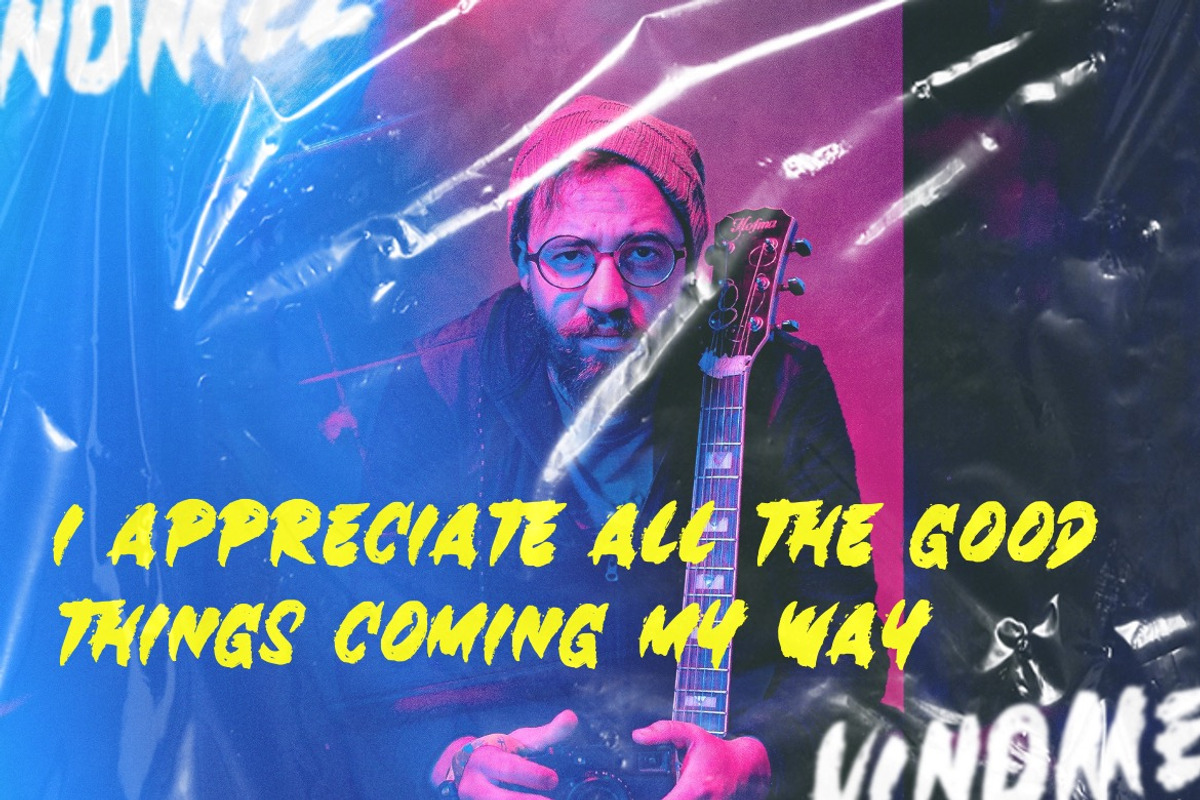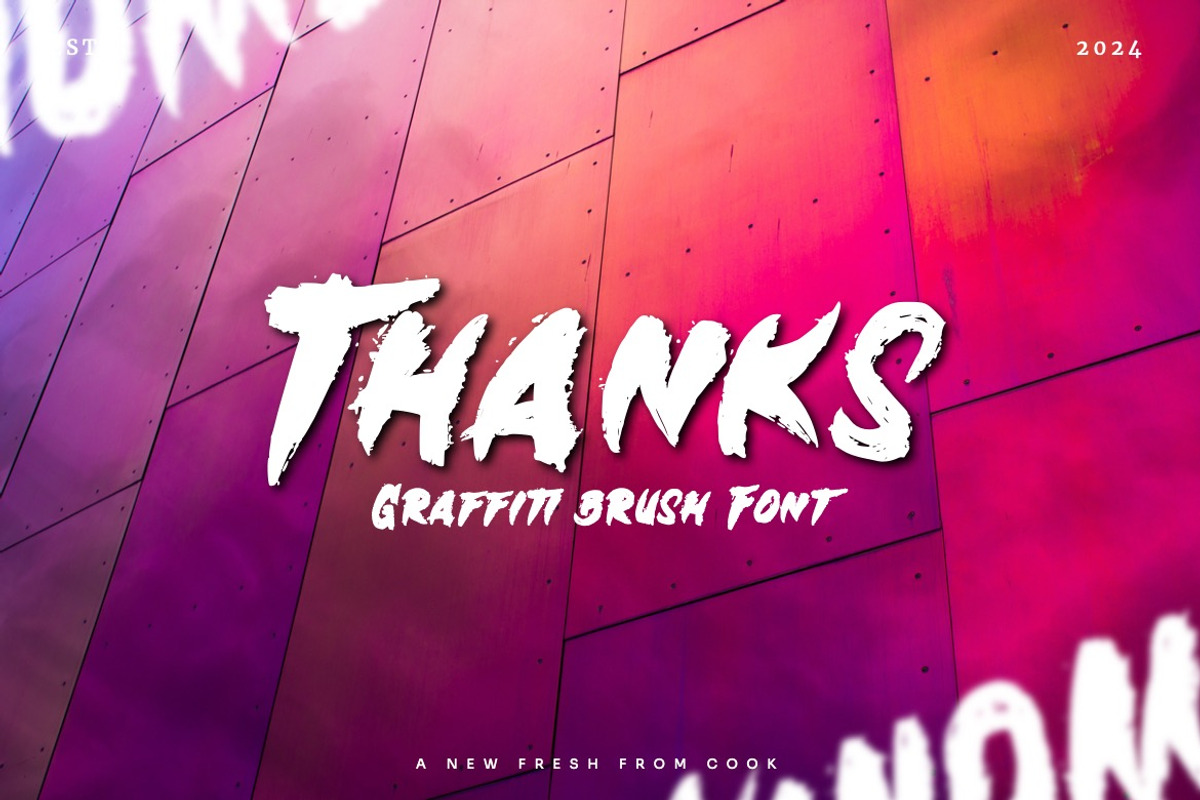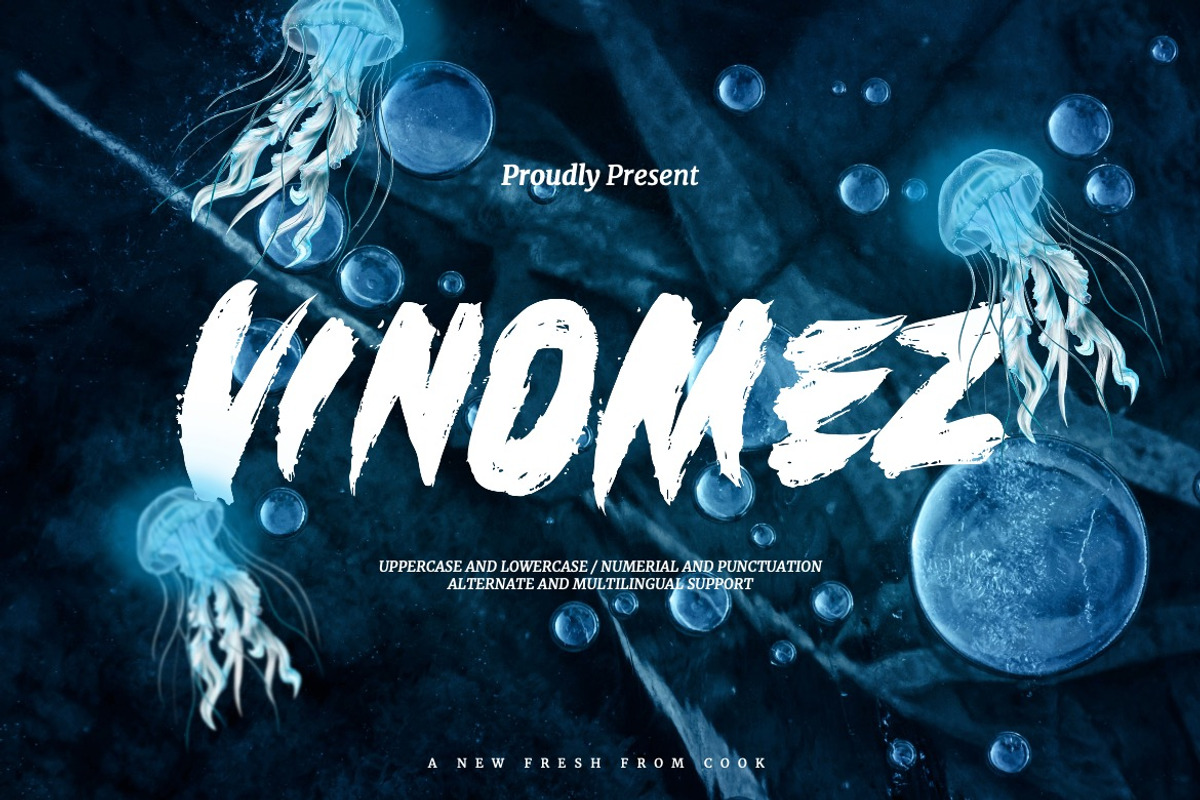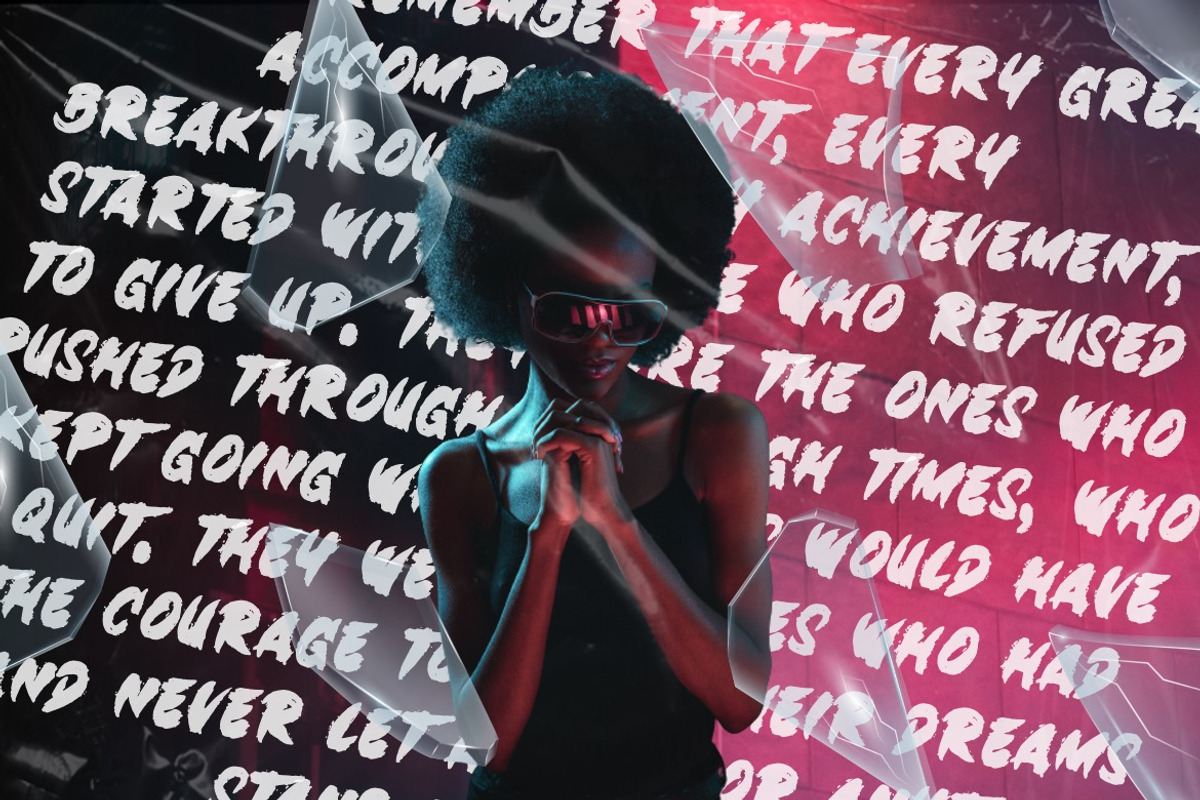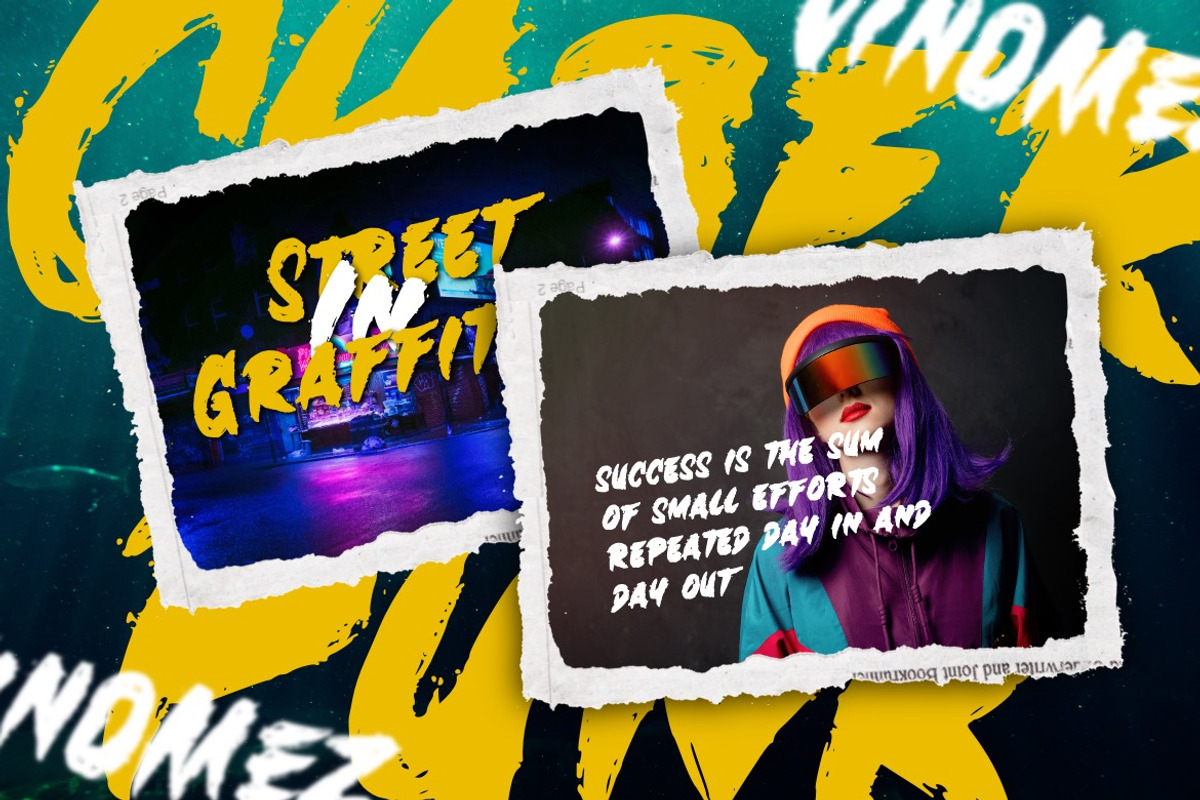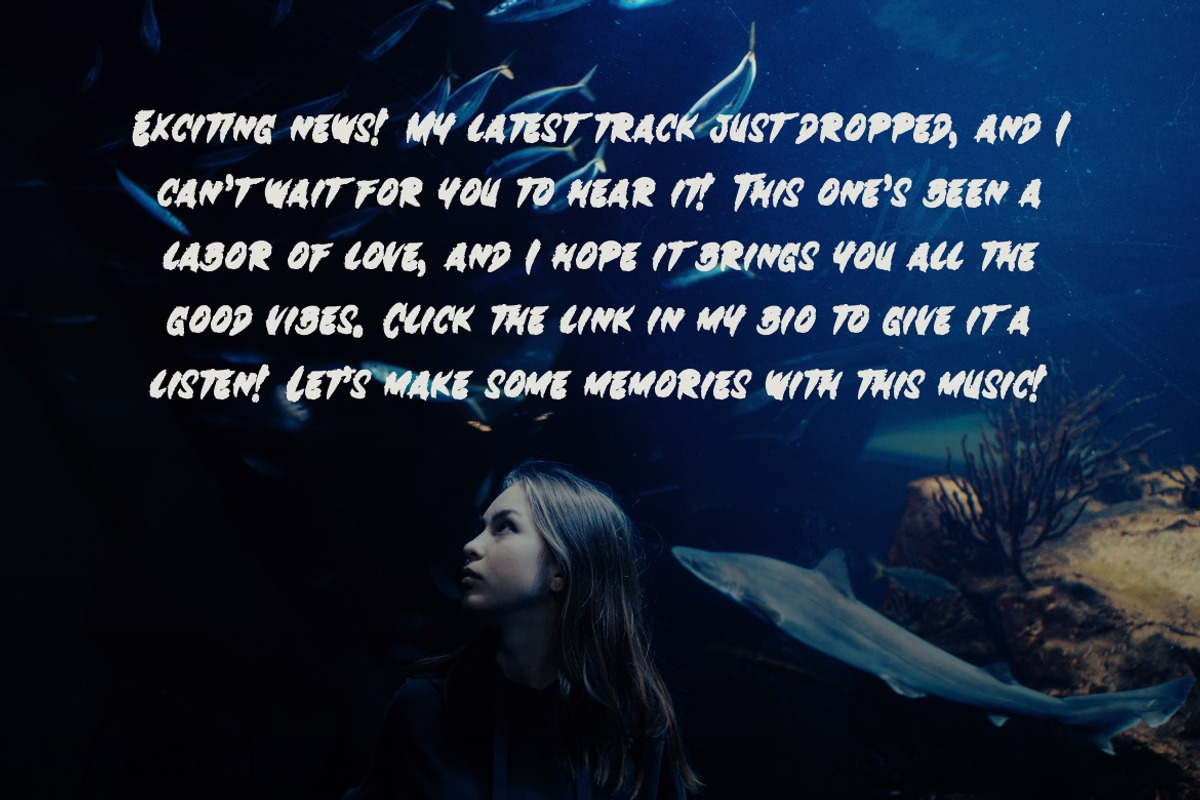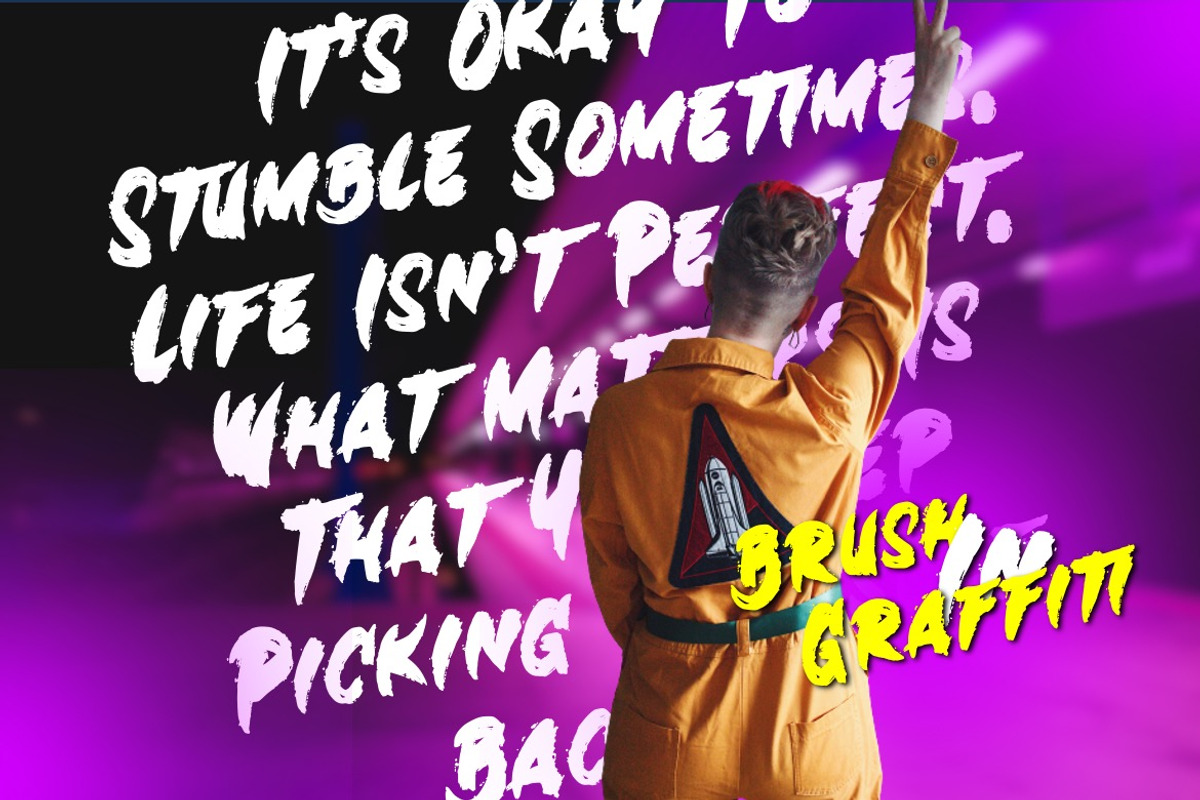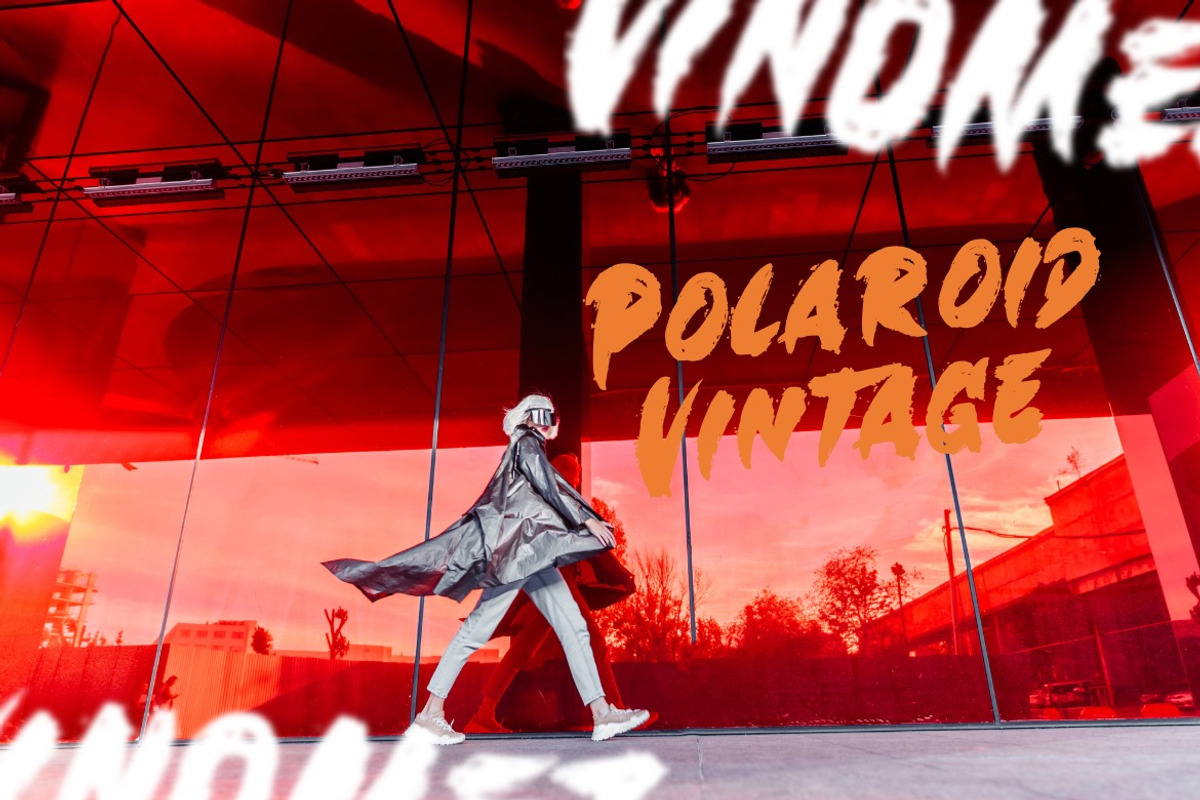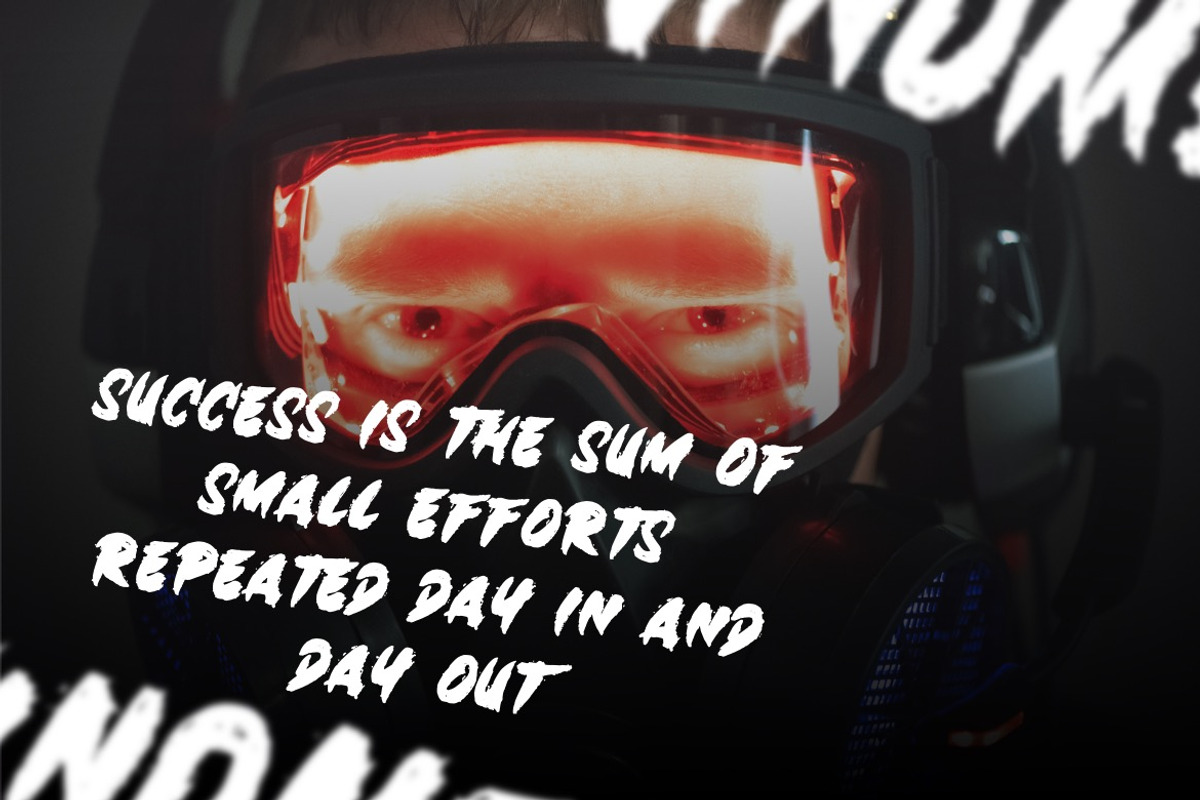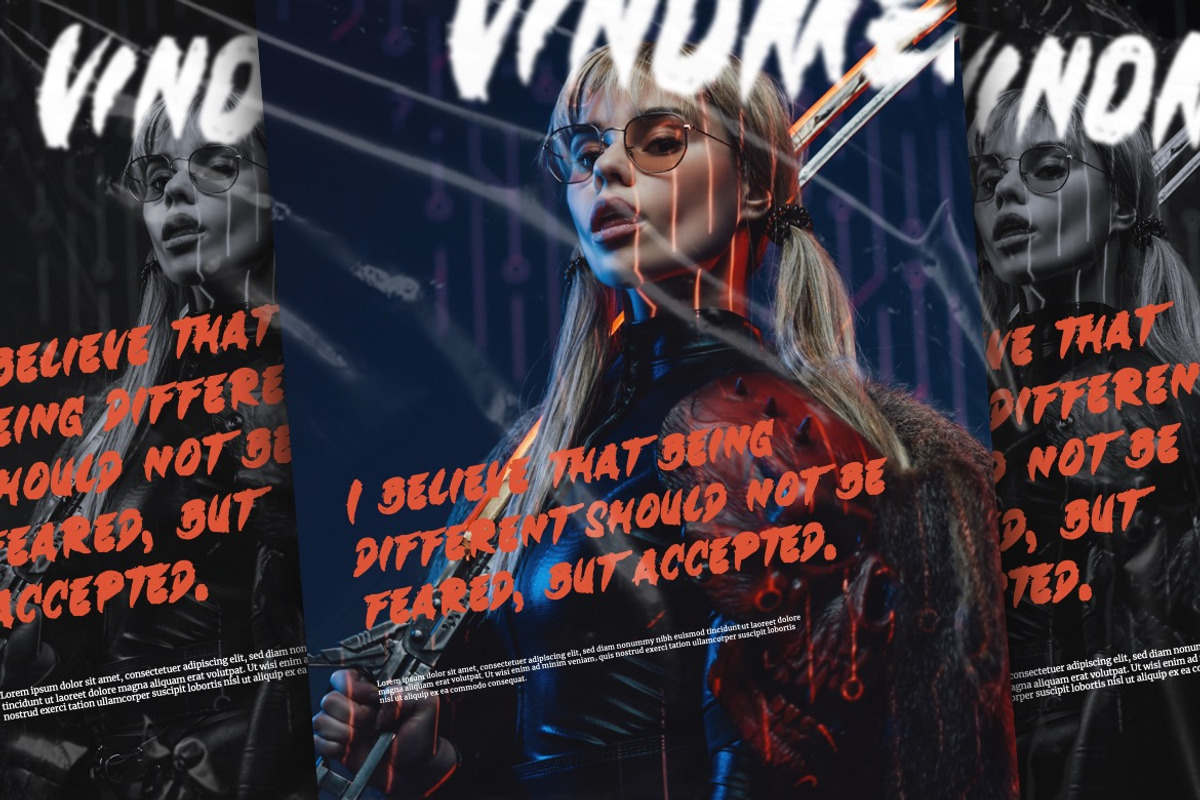
Vinomez - Graffiti Brush Font
Introducing Vinomez - Graffiti Brush Font
This Font is a delicate, elegant and flowing handwritten font. It has beautiful and well as a unique blend of ligatures a letter, so that the authors compose it with a and little swirly embedding, so that a modern font is formed and ready to make a statement by adding elegant and unique flair to your next design project. Add it to your most creative ideas and notice how it makes them come alive!
• Unique Alternate